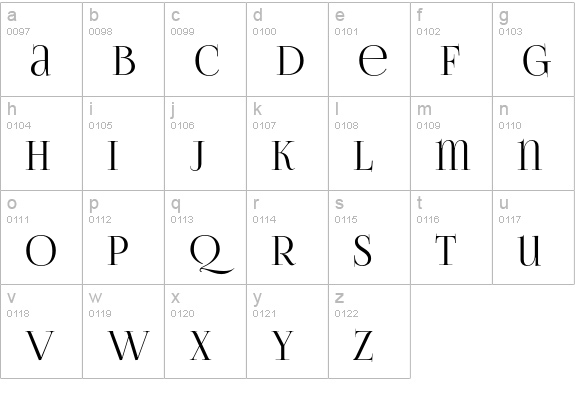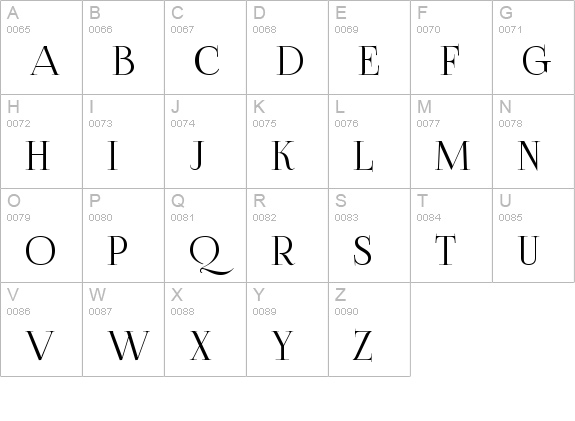
FoglihtenNo06 Font Details
FoglihtenNo06 is a stunningly elegant font that exudes sophistication and charm. Its intricate details and graceful curves make it a perfect choice for any project that requires a touch of class. Whether you're designing a wedding invitation, creating a logo for a high-end brand, or crafting a beautiful book cover, this font will effortlessly elevate your work to new heights. What makes FoglihtenNo06 even more remarkable is the fact that it is available for free. Yes, you read that right – this exquisite font can be downloaded at no cost from FontsMarket.com. It's a rare gem in the world of typography, where quality often comes with a hefty price tag. But with FoglihtenNo06, you can enjoy the beauty and sophistication it offers without having to spend a single penny. Downloading FoglihtenNo06 is a breeze. Simply head over to FontsMarket.com, locate the font, and with just a few clicks, it will be yours to use and enjoy in your creative endeavors. The generous offer of this font being freely available is a testament to the creators' commitment to spreading beauty and elegance in design, without any barriers. Once you start working with FoglihtenNo06, you'll find yourself captivated by its timeless allure. Its thin strokes and delicate details add a sense of refinement to any project, while its versatility allows it to adapt to a wide range of design styles and themes. From formal to whimsical, from classic to contemporary, FoglihtenNo06 effortlessly transitions and enhances the visual appeal of your work. Don't miss out on this incredible opportunity to enhance your design projects with FoglihtenNo06. Visit FontsMarket.com today and experience the beauty and elegance of this font for yourself. Download it for free and let your creativity soar to new heights.